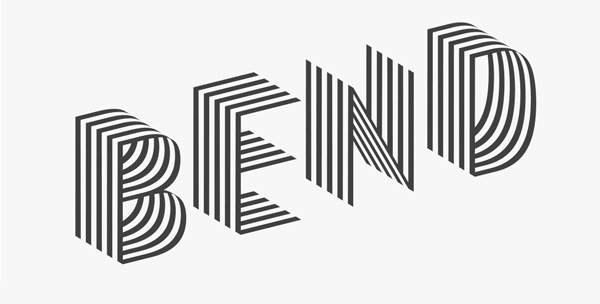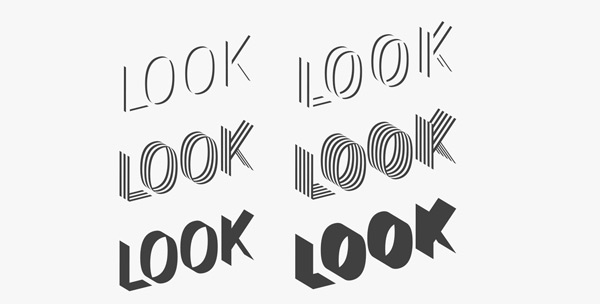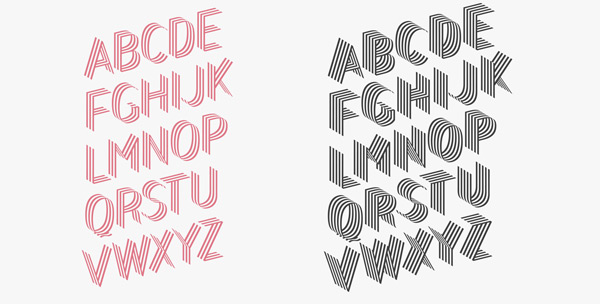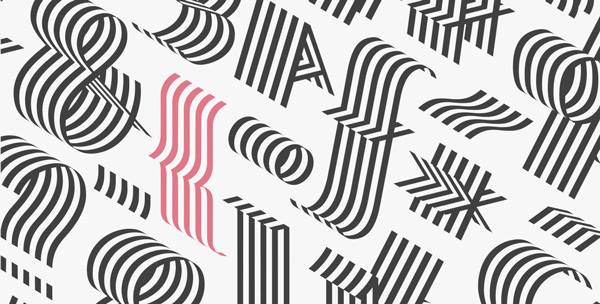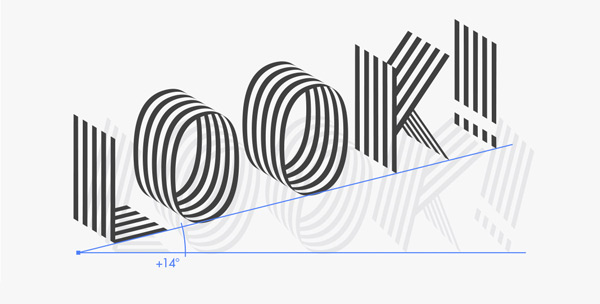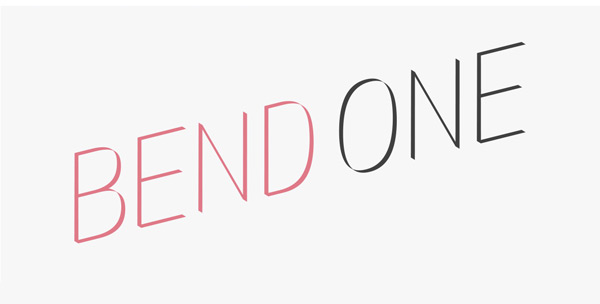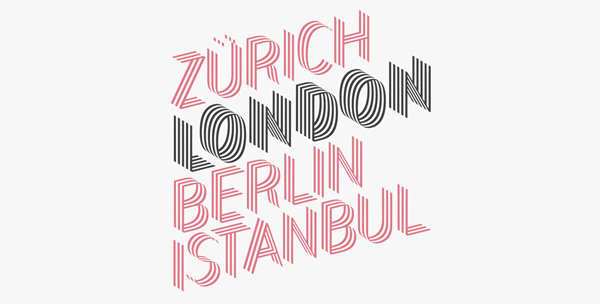
Bend is one of Juri Zaech’s recent fonts. It is a ribbon font with a twist. First, it doesn’t have serif like most ribbon fonts do. Second, it has a nice isometric 3D effect that comes with different amounts of layers depending on the use you want to make of it.
Bend comes in two widths and with three different layers for chromatic results. As a display typeface Bend likes to be set in big sizes and short sentences. Juri Zaech is a typographer based in Paris, you should definitely check out his other fonts too.